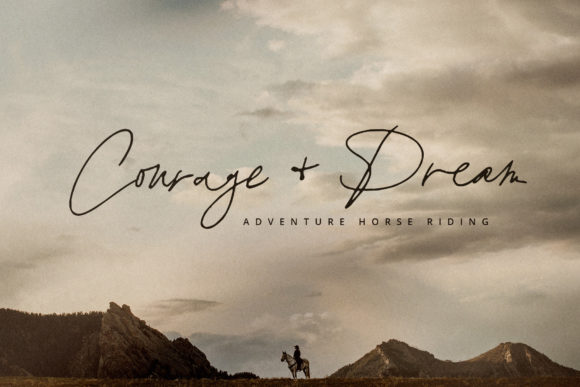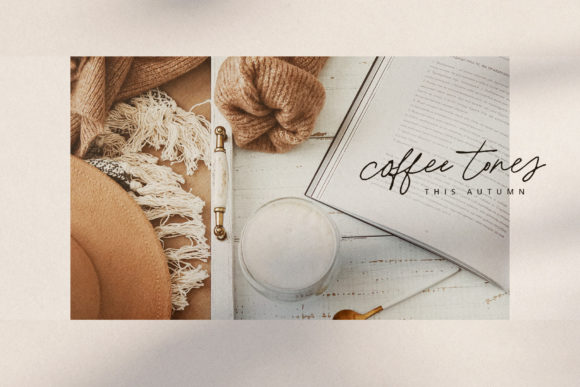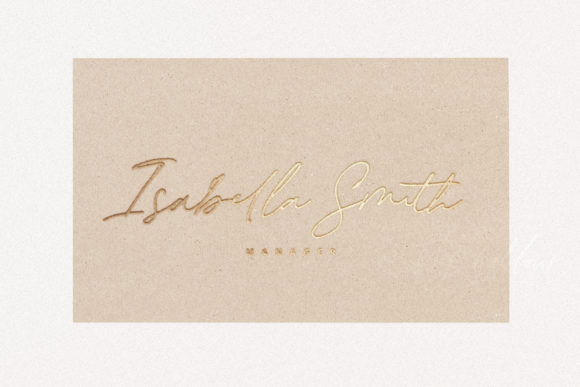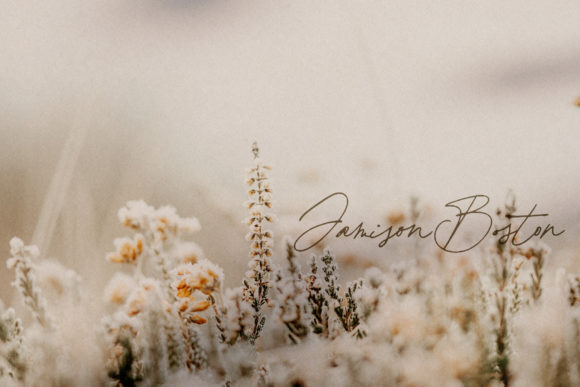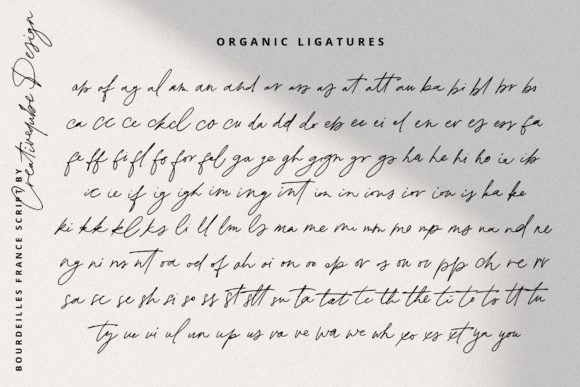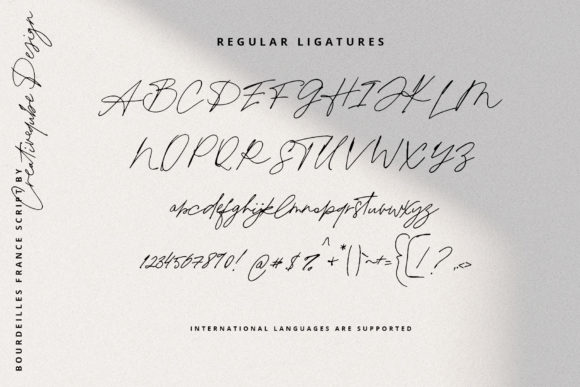
Unlock the Artistry of Bourdeilles France Font
Have you ever stared at a blank canvas, waiting for the perfect font to bring your creative vision to life? The search for that elusive, elegant script is a designer’s perpetual quest. And then, suddenly, it appears – a delicate, fashionable script font that elevates your work to new heights. Welcome Bourdeilles France Font, the perfect companion for any branding project, from logos to t-shirt printing and beyond.
This charming font is more than just a pretty face; it’s a valuable asset for designers seeking to add a touch of sophistication to their creations. With its PUA encoding, you’ll have access to all the glyphs and swashes you need to create stunning designs. Whether you’re a seasoned pro or a rising star, Bourdeilles France Font is sure to become your go-to choice for any project that demands elegance and flair.
- Unique Characteristics: Bourdeilles France Font features a unique blend of French calligraphy and modern typography, with intricate flourishes and ornate details that evoke the elegance of 19th-century France.
- Font Family: The font family consists of multiple weights, including Light, Regular, Bold, and Extra Bold, allowing designers to create a range of visual effects and moods.
Bourdeilles France Font Review
Overall, I’m quite impressed with the Bourdeilles France Font. It has a unique and elegant aesthetic that makes it perfect for various design projects. ✨ One of the standout features of this font is its versatility, as it can be used for both modern and traditional designs.
- What works well:
- Unique and elegant aesthetic
- Perfect for various design projects
- Versatile for modern and traditional designs
- Limitations:
- May be difficult to read at very small font sizes ⚠️
- Not suitable for highly technical or instructional content
In terms of overall impression, I’d say that the Bourdeilles France Font is a solid choice for designers looking for a unique and elegant font. While it may have some limitations, its versatility and aesthetic appeal make it a great option for a wide range of design projects.
Use the Bourdeilles France Font for titles, headings, and body text to add a touch of elegance to your designs.
Pair the font with simple graphics and images to avoid overwhelming the design.
The Bourdeilles France Font is perfect for:
Business cards and brochures
Book covers and publishing materials
Any design that requires a touch of sophistication and elegance
Alternatives to Bourdeilles France Font
Playfair Display is a high-end serif font, ideal for luxury brands and high-end fashion labels. It’s perfect for creating a sense of elegance and sophistication. When to use: Headlines, titles, and quotes for high-end brands.
Comparison to Bourdeilles France Font: While both fonts have a classic feel, Playfair Display is more ornate and luxurious, making it a better choice for high-end brands. Bourdeilles France Font has a more rustic feel and is better suited for vintage or country-inspired designs.